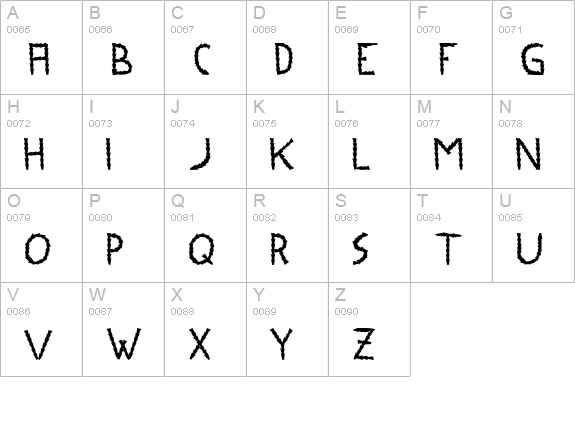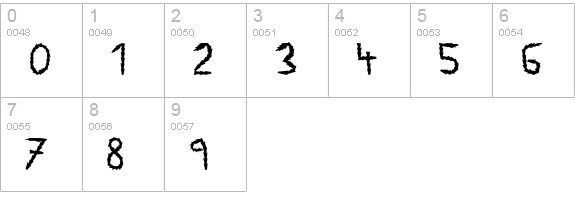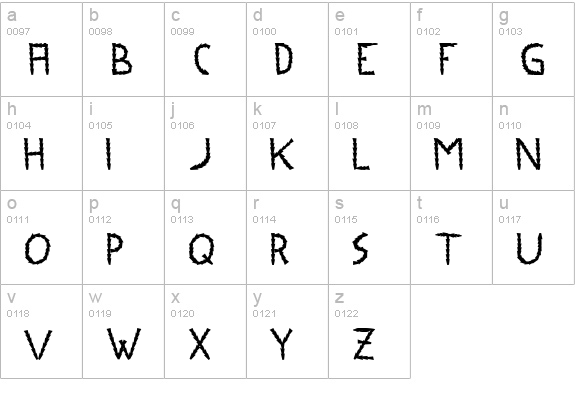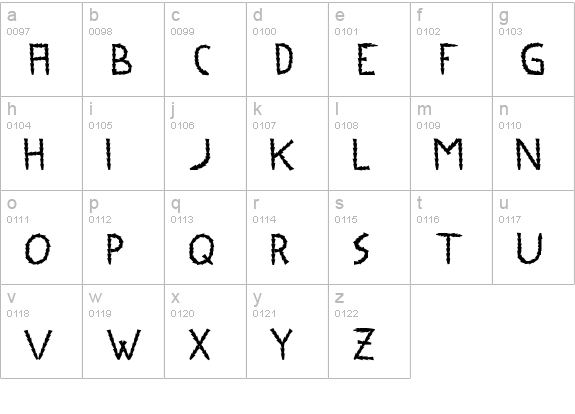
Palms Font Details
Introducing Palms Font - a captivating typeface that effortlessly captures the essence of tropical paradise. With its unique and flowing letterforms, Palms Font evokes a sense of relaxation, rejuvenation, and a touch of exoticism. Crafted with meticulous attention to detail, this font boasts a harmonious balance between elegance and playfulness, making it versatile for various creative projects. Whether you're designing a beach-themed invitation, a travel brochure, or a summer-themed branding campaign, Palms Font is the perfect choice to infuse your designs with a touch of sun-soaked charm. What sets Palms Font apart is not just its stunning aesthetics but also its accessibility. This font is available for free download at FontsMarket.com, allowing designers, enthusiasts, and creatives of all kinds to easily access and incorporate this beautiful typeface into their work. With Palms Font, you can effortlessly transport your audience to a tropical oasis, where the gentle rustling of palm leaves and the soft caress of warm breeze are captured in every curve and stroke of this font. So, bring the essence of paradise to your designs with Palms Font and let your creativity soar.